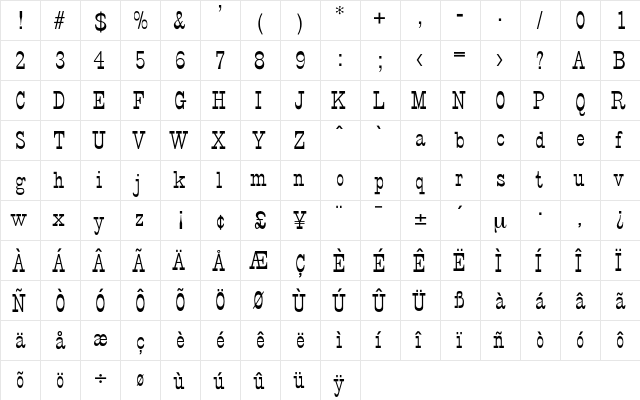
Amarillo Regular
Design Context for Amarillo Typeface
Amarillo offers clean, dependable letterforms without strong stylistic allegiance, making it a practical choice for designers who need flexibility.
Pro Tip: Use Amarillo in both headline and body roles to test its range before committing to a single application.